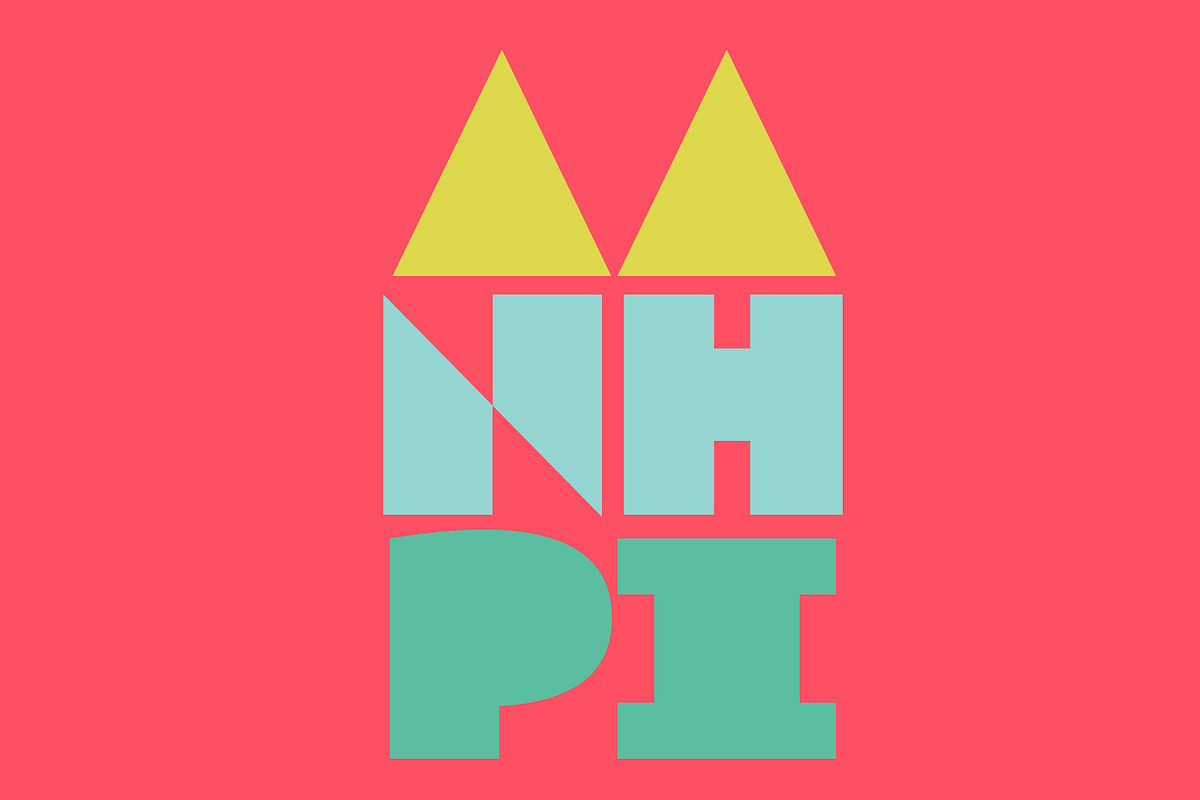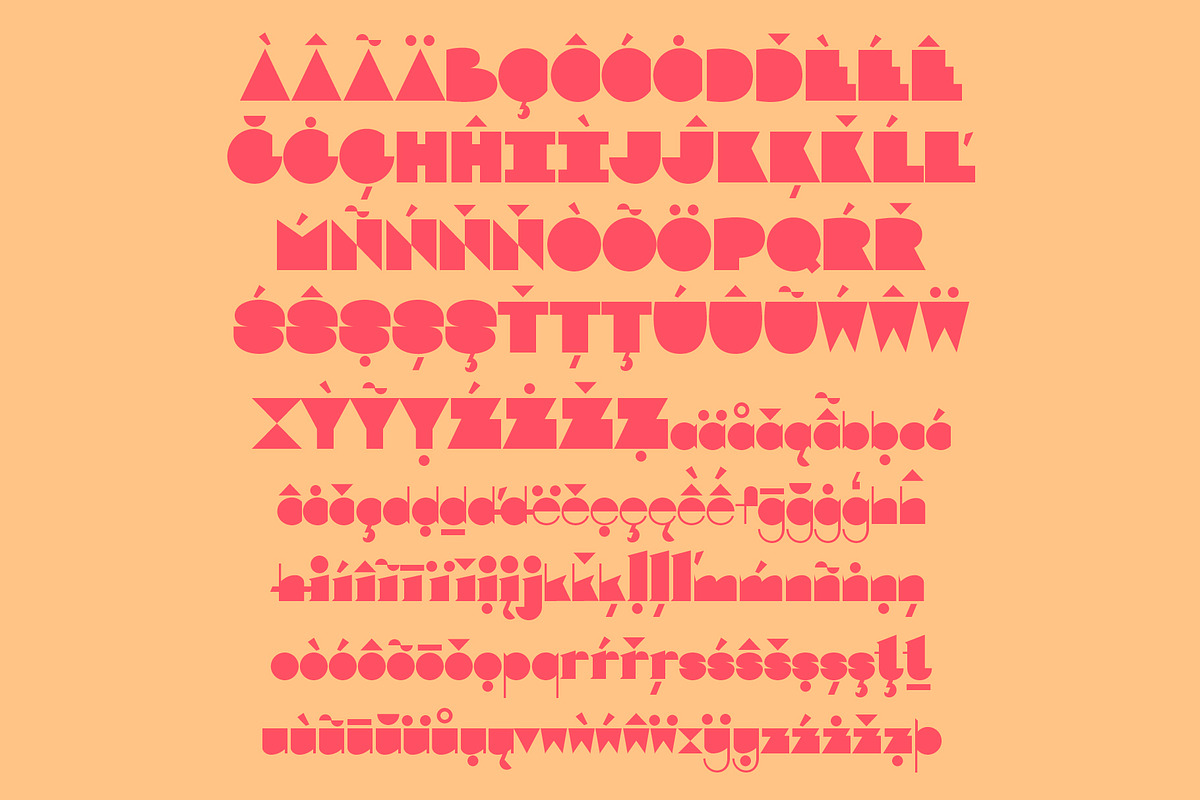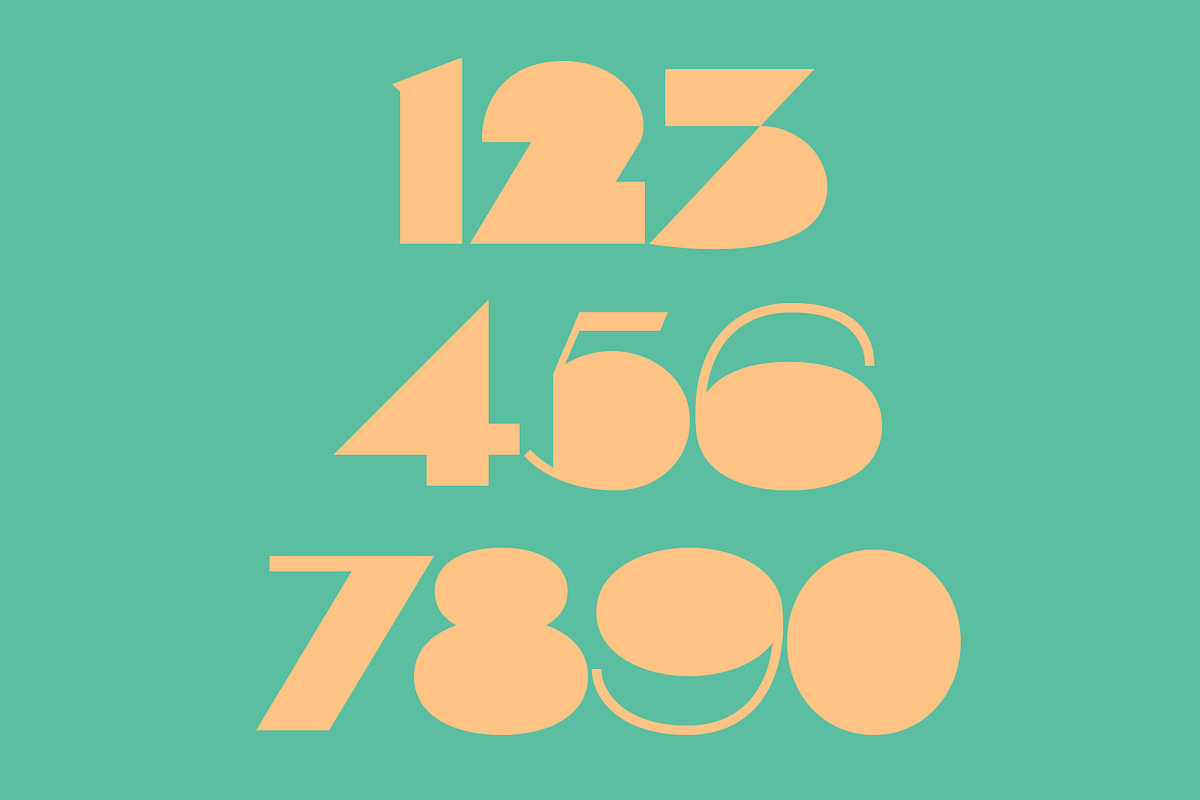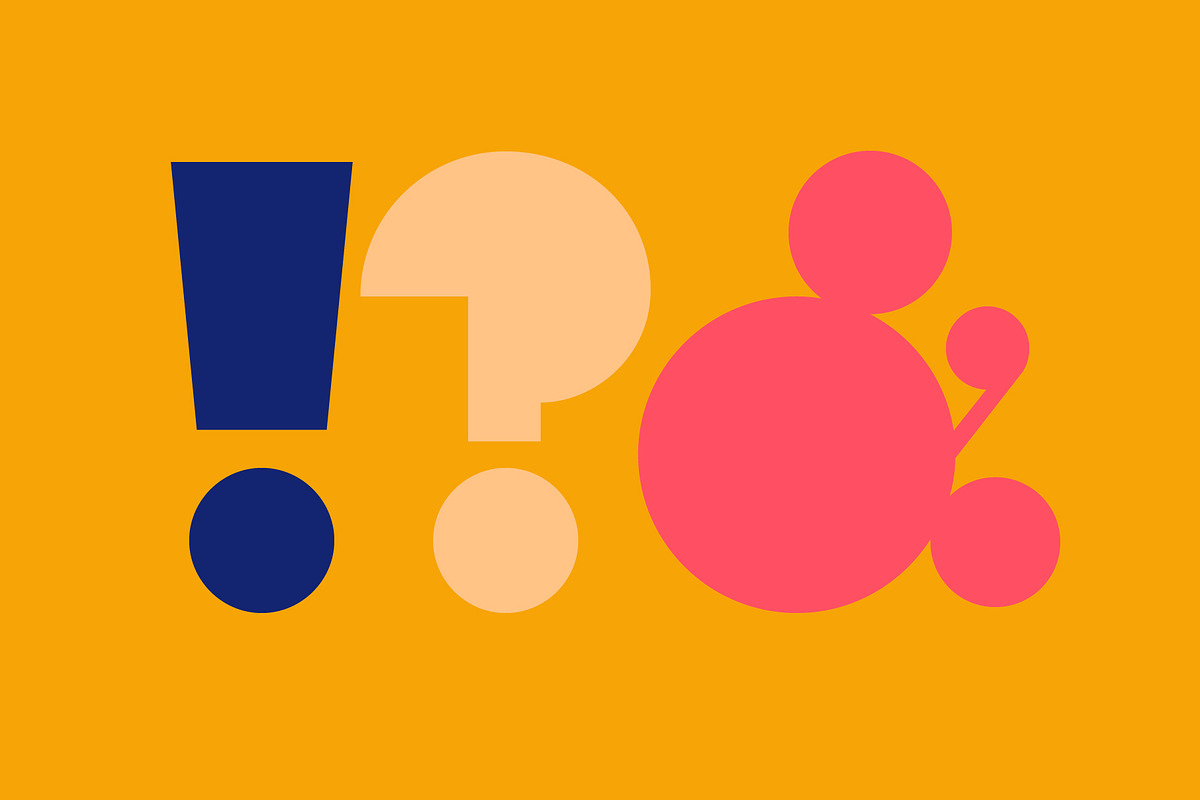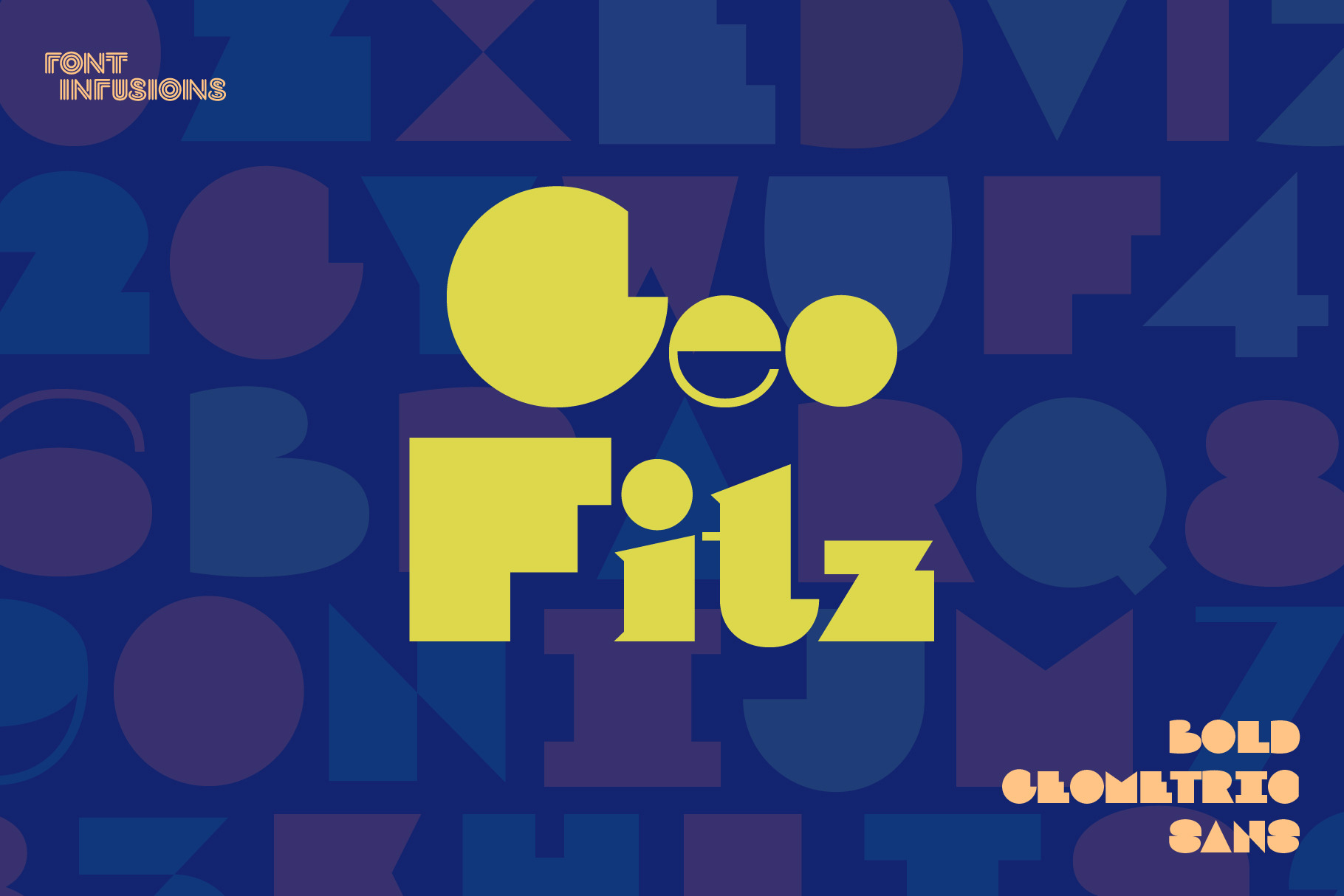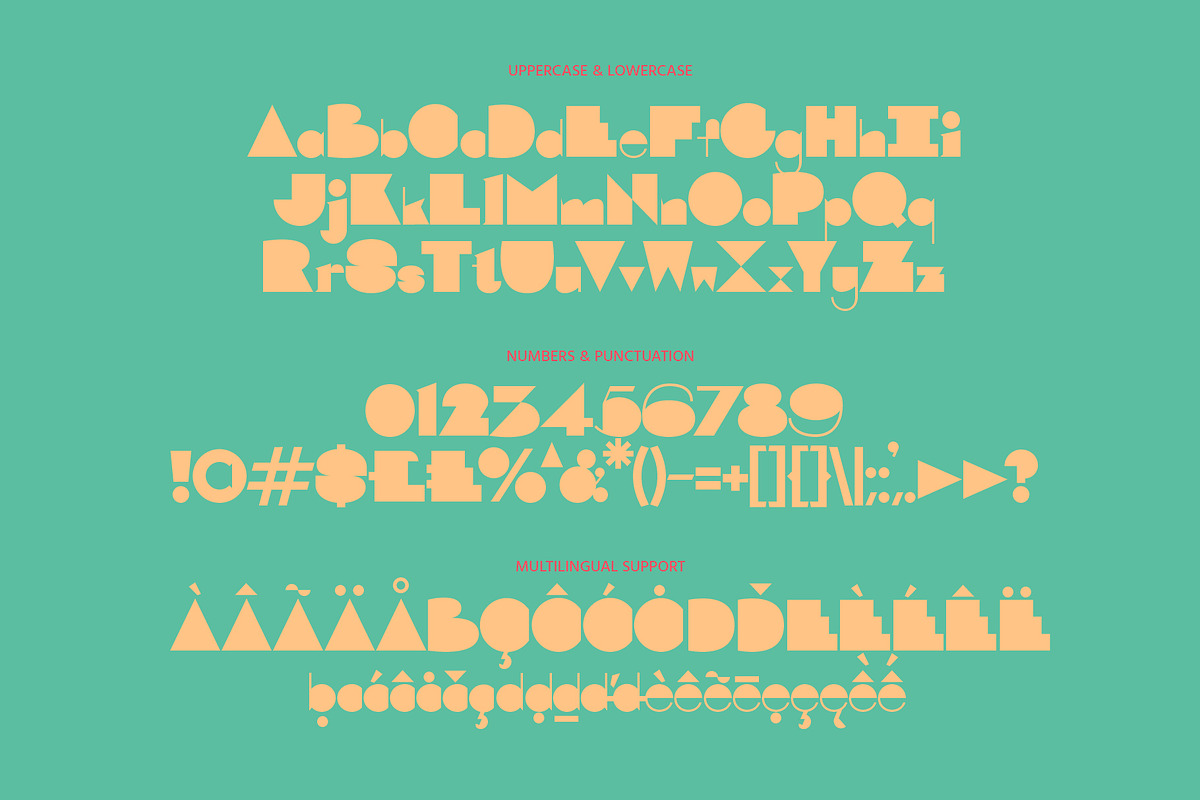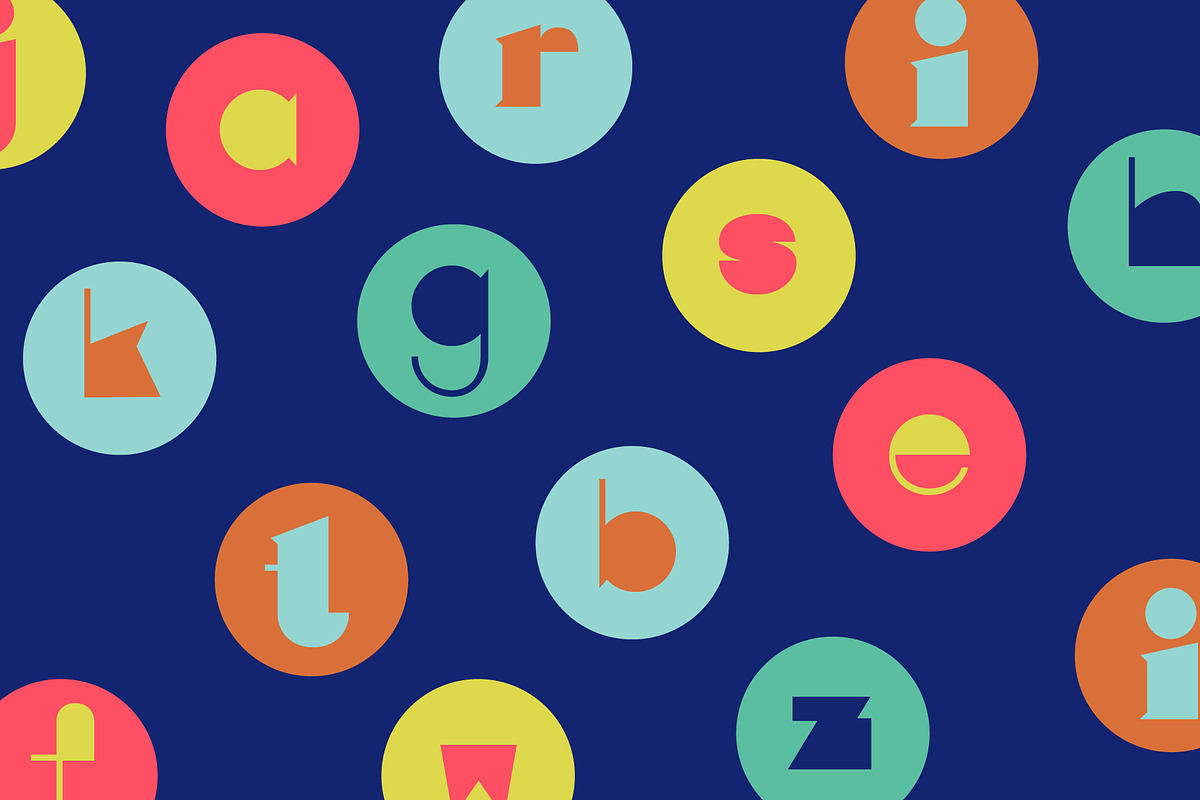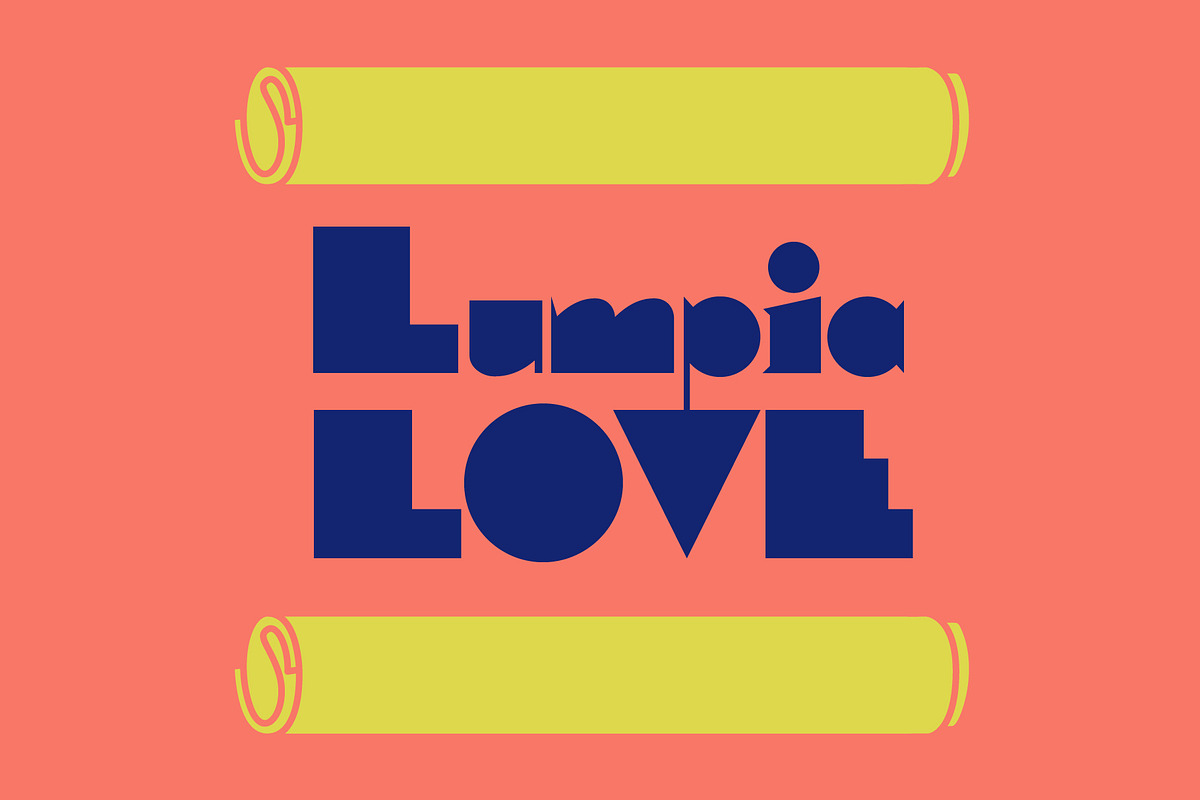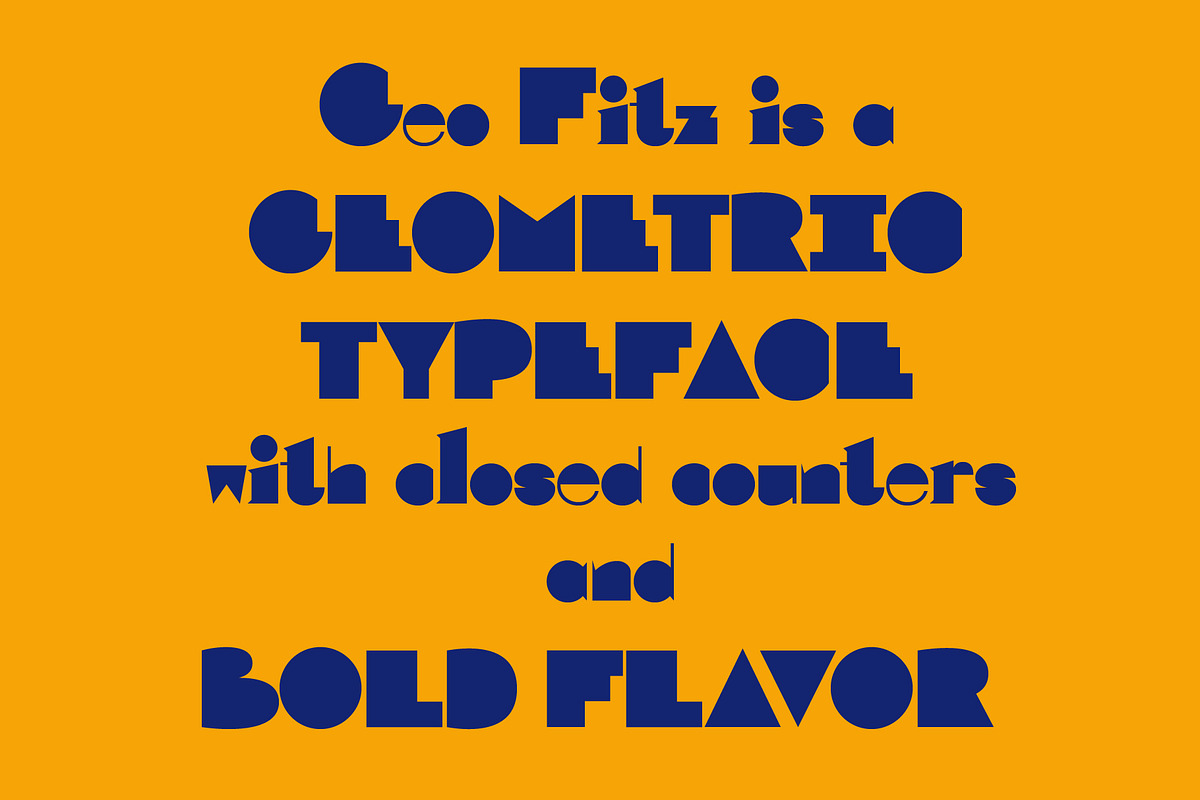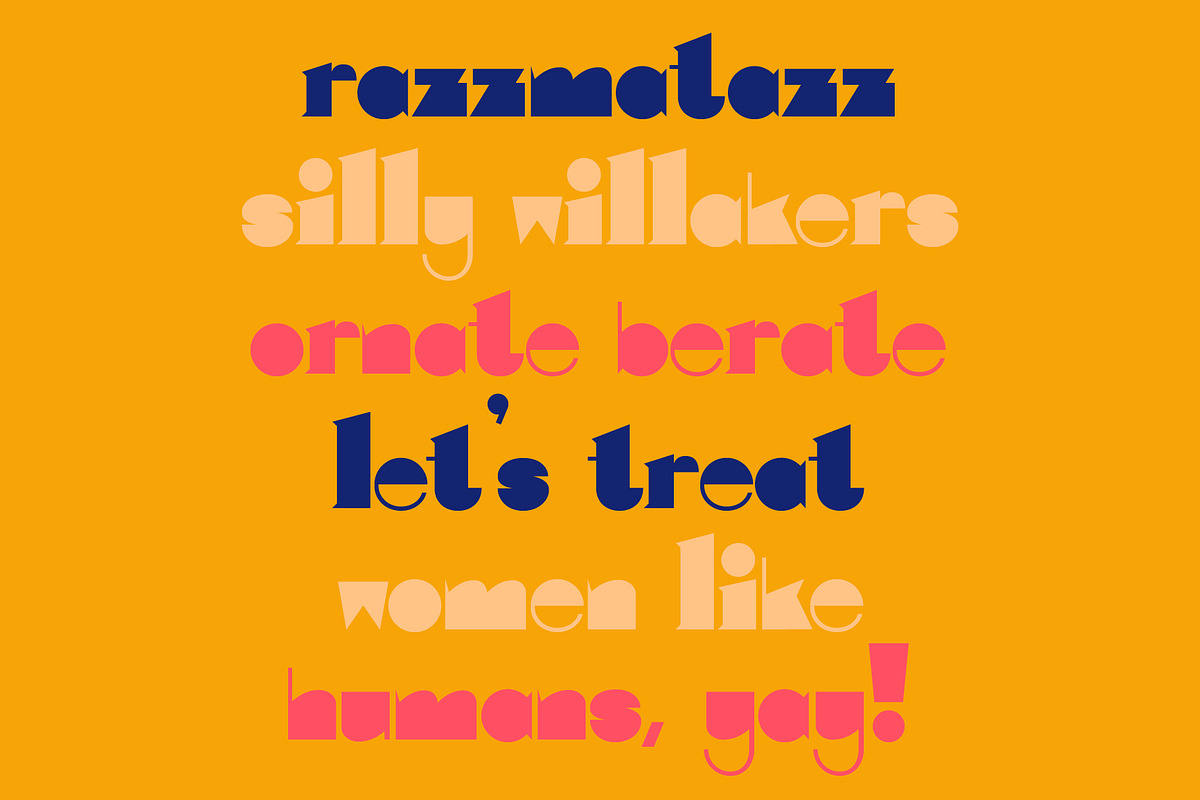
Geo Fitz - geometric font
This sans serif display typeface barrels out the gate with bold geometrics.
Type Specimens Geo Fitz is perfect for projects that aim to make a statement with modern flair. With Geo Fitz, you possess a leeway on your levers of readability: Fill your canvas with larger-than-life ALL-CAPS characters to challenge your audience. “Are those design-y shapes, or letters?” If your goal is more readability, use sentence case and adjust your type size accordingly to express your point in style. If clean lines and a designed look is what you need, Geo Fitz takes a bold geometric bite.
Typography Talk A typography sommelier might describe Geo Fitz as such: “For the uppercase, there’s strong bouquet of closed counters and fat-forward stems, with an interesting play of negative space and angles especially in the letter N. There’s a taste of playful counterpoint between pointed join and smooth curve most notably on both the uppercase and lowercase S. Geo Fitz keeps you on your toes with the lowercase, wherein in contrast to the beefy uppercase stems, there lies a trace of twiggy ascenders and descenders.”
Background The challenge was to express each character in the most efficient way possible, while keeping things interesting by contrasting simple shapes with angled serifs. The name of this typeface was inspired by a nightclub for tweens where I grew up. It was so random! I wasn’t a cool kid in grade school, so I never went, and it was probably just as well, because it was NIGHTCLUB FOR TWEENS WTF.